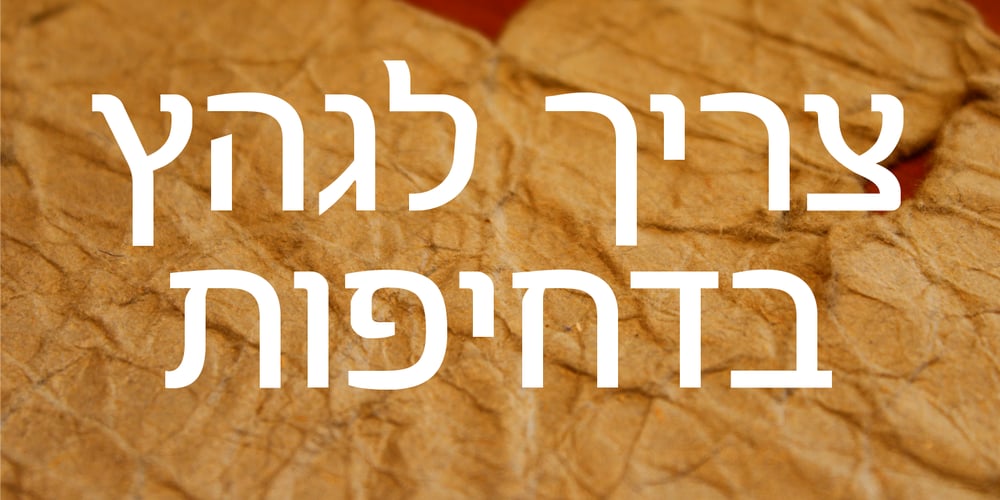
Classica MF Font Family was designed by Zvika Rosenberg and published by Masterfont. Classica MF contains 4 styles and family package options. Geometric forms with subtle curves make this elegant font family a great companion for titles, invitations and signs, indoor and outdoor.